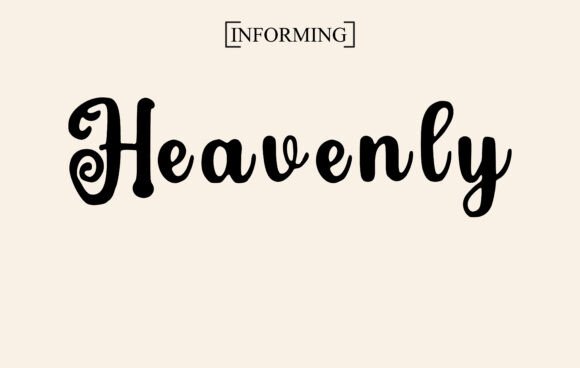
Heavenly Threads Font: Elevate Your Designs with Elegance and Legibility
In the realm of typography, a well-crafted font can be the key to unlocking the full potential of your creative projects. Introducing Heavenly Threads Font, a meticulously designed typeface that promises to become your true favorite. With its exceptional legibility and versatility, this font is poised to take your designs to new heights, making it an indispensable tool for creatives across various mediums.
The Essence of Heavenly Threads Font
Heavenly Threads Font is more than just a collection of letters; it’s a gateway to transforming your ideas into visually stunning realities. Its design focuses on achieving a perfect balance between elegance and readability, making it an ideal choice for a wide range of applications. Whether you’re working on magazine headlines, t-shirts, social media content, branding materials, wedding invitations, or greeting cards, this font is engineered to enhance your creative output.
Key Features of Heavenly Threads Font
- Legibility: One of the standout features of Heavenly Threads Font is its exceptional legibility. This ensures that your message is conveyed clearly, whether it’s used for body text or as a headline.
- Versatility: The font’s design allows it to be versatile, fitting seamlessly into various design contexts. From the sophistication of magazine headlines to the casual vibe of t-shirts, Heavenly Threads Font adapts with ease.
- Elegance: With its elegant strokes and beautiful curves, Heavenly Threads Font adds a touch of sophistication to any design. This makes it perfect for projects that require a level of refinement, such as wedding invitations and branding materials.
Applications of Heavenly Threads Font
The versatility of Heavenly Threads Font means it can be used in a multitude of creative projects. Here are some of the areas where this font truly shines:
1. Magazine Headlines
Grab the attention of your readers with stylish and readable headlines. Heavenly Threads Font’s unique design ensures that your magazine stands out on the newsstand.
2. T-Shirts and Merchandise
Elevate your apparel and merchandise designs with a font that’s both stylish and legible. Heavenly Threads Font ensures that your message or brand name is not only seen but also remembered.
3. Social Media
In the digital age, social media is a crucial platform for engagement. Use Heavenly Threads Font to create posts that are not only informative but also visually appealing, helping you stand out in crowded feeds.
4. Branding
Establish a strong brand identity with Heavenly Threads Font. Its elegant and professional look makes it suitable for logos, business cards, and official documents.
5. Wedding Invitations and Cards
Add a touch of elegance to your wedding invitations, greeting cards, and other personal stationery. Heavenly Threads Font’s sophisticated design ensures that your special moments are celebrated in style.
Why Choose Heavenly Threads Font?
With so many fonts available, why should Heavenly Threads Font be your go-to choice? The answer lies in its unique blend of style, legibility, and versatility. Here are a few reasons to consider:
- Unique Design: Heavenly Threads Font offers a distinctive look that sets it apart from more generic typefaces. Its unique design elements ensure that your projects have a professional and bespoke feel.
- Time-Saving: With Heavenly Threads Font, you can achieve professional-looking results without spending hours on design. Its legibility and aesthetic appeal save you time and effort, allowing you to focus on other creative aspects of your project.
- Cross-Platform Compatibility: This font is designed to work seamlessly across various platforms and applications, ensuring consistency in your brand’s visual identity.
Heavenly Threads Font is more than just a typeface; it’s a creative tool designed to elevate your designs. With its perfect blend of elegance, legibility, and versatility, it’s poised to become an indispensable part of your creative arsenal. Whether you’re a professional designer or an entrepreneur looking to enhance your brand’s visual identity, Heavenly Threads Font offers the potential to transform your ideas into something truly remarkable.
Embrace the Potential of Heavenly Threads Font
Don’t just create; elevate your creations with Heavenly Threads Font. Experience the difference it can make in your designs and discover why it’s set to become your favorite go-to font for all your creative projects.